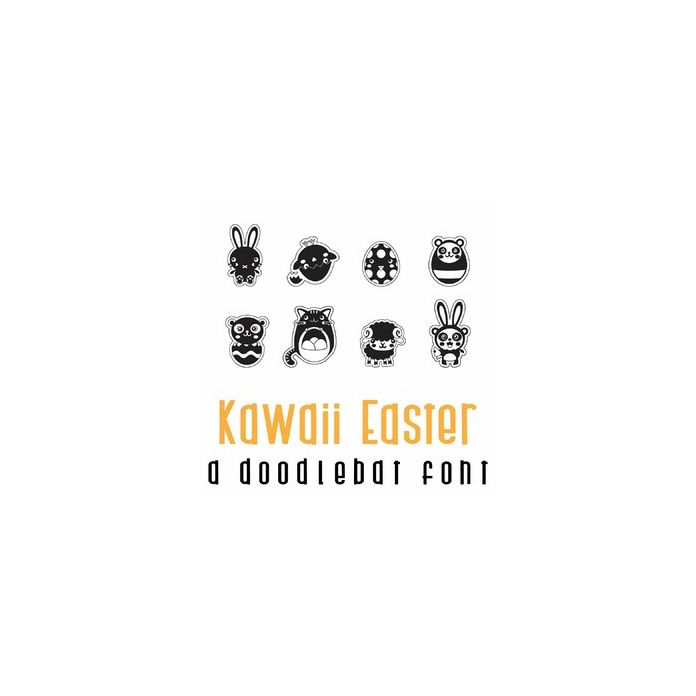
Kawaii Easter Doodlebat Font
This fun doodlebat font features 26 Kawaii style Easter images. Perfect for cards, crafts, gifts, decor, scrapbook pages, planner stickers and more!